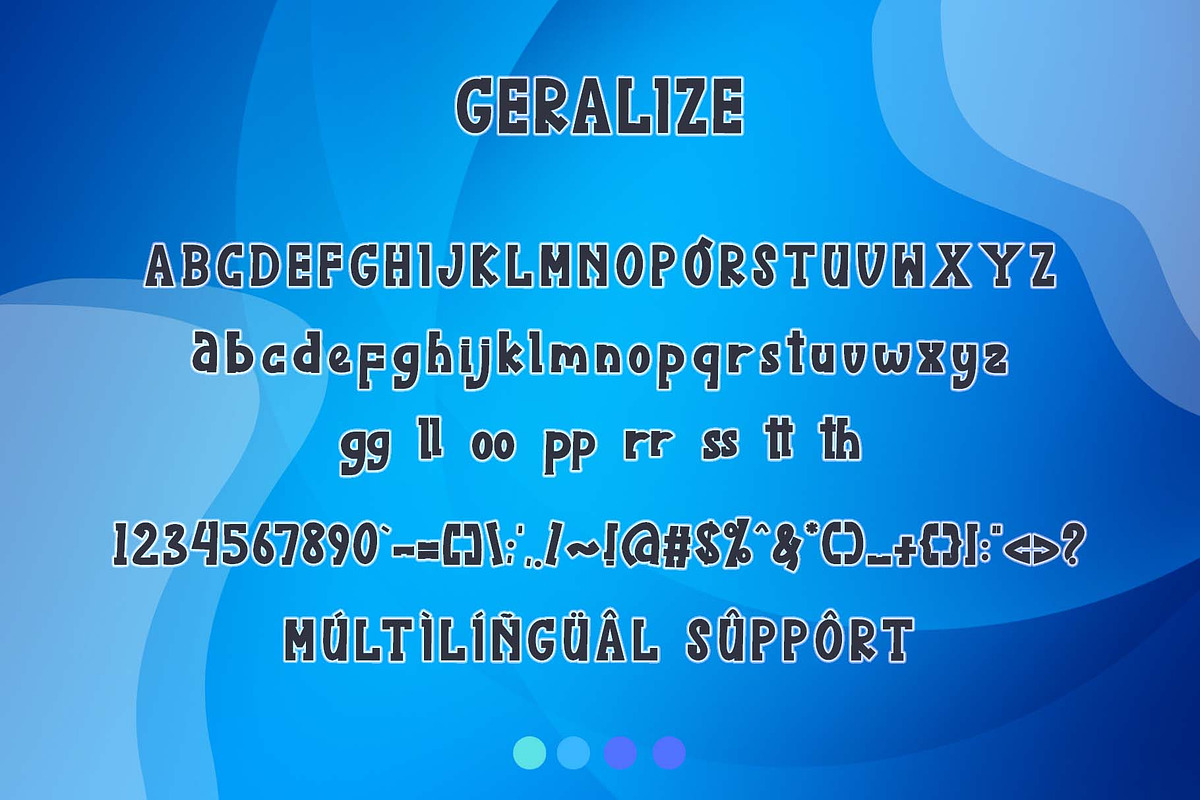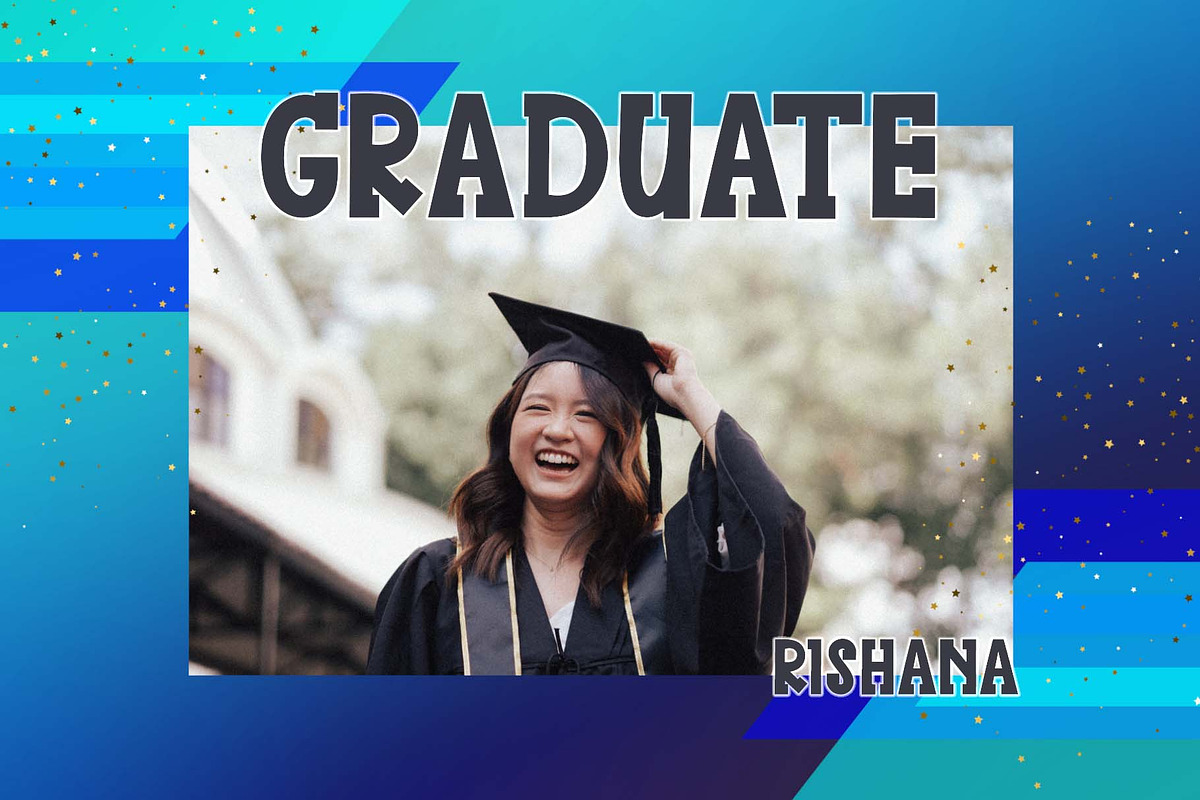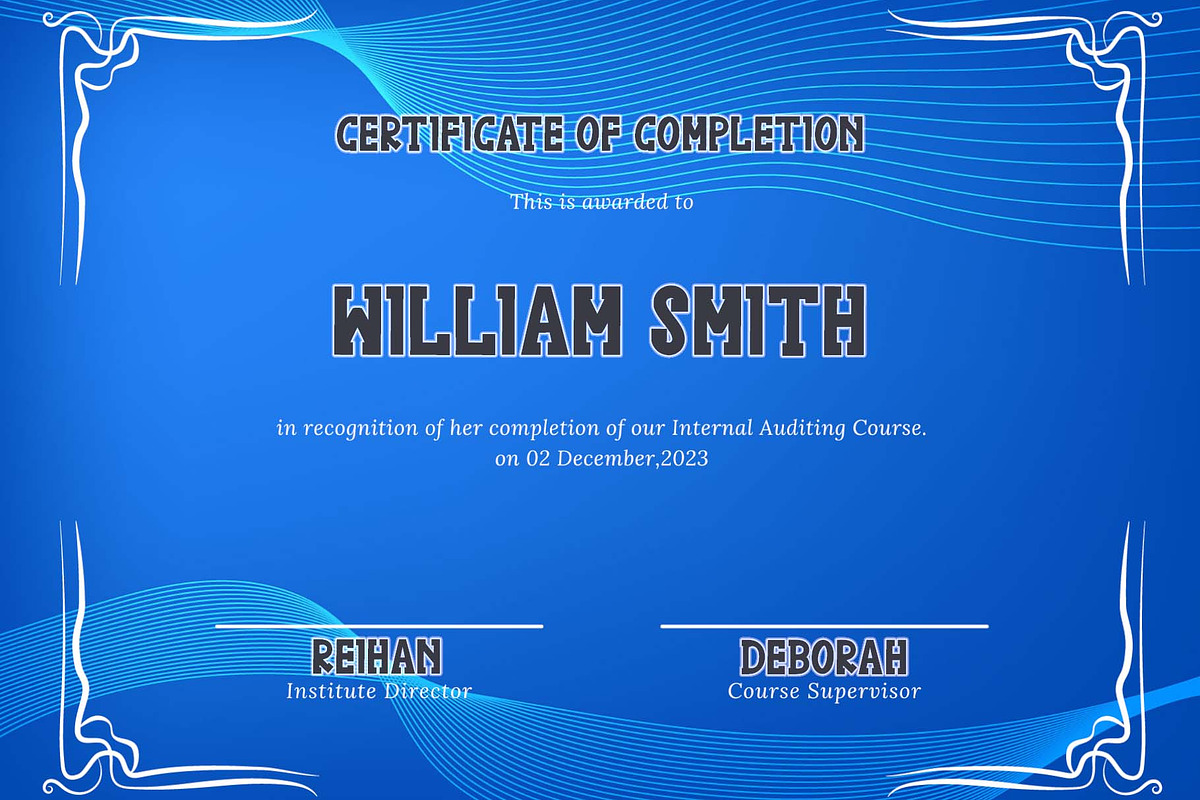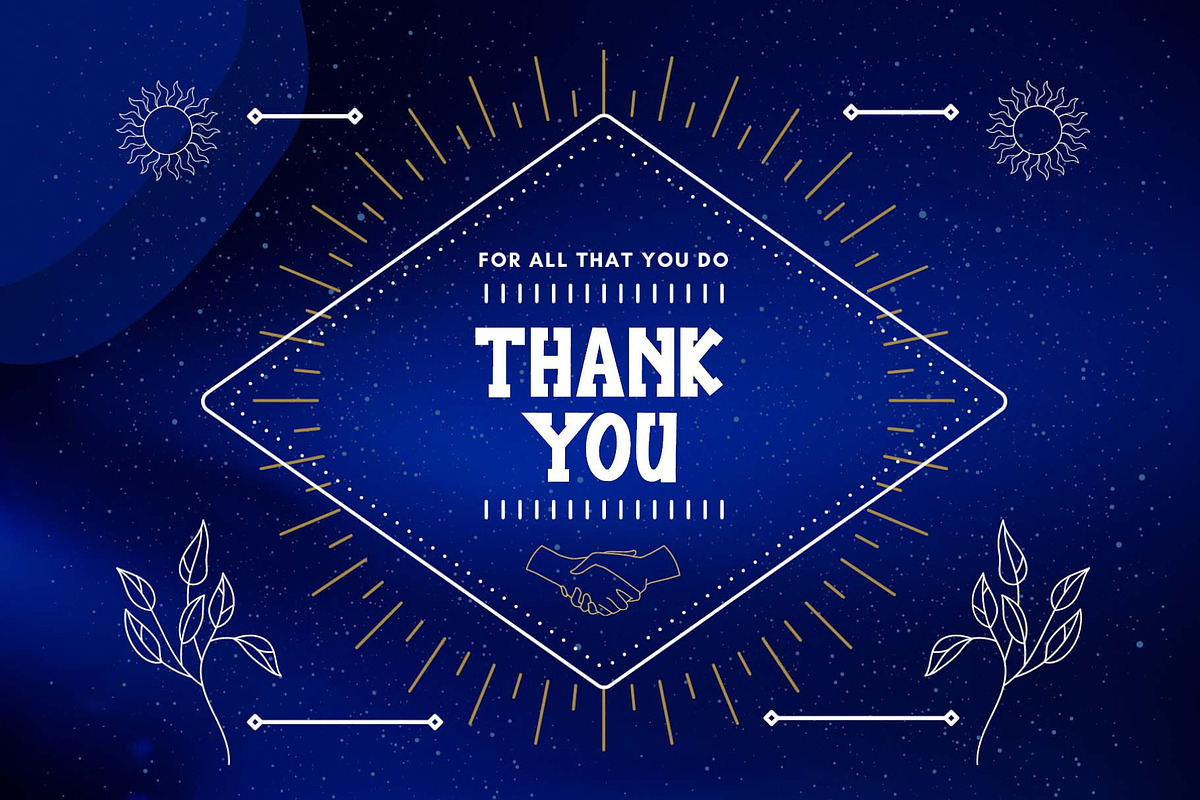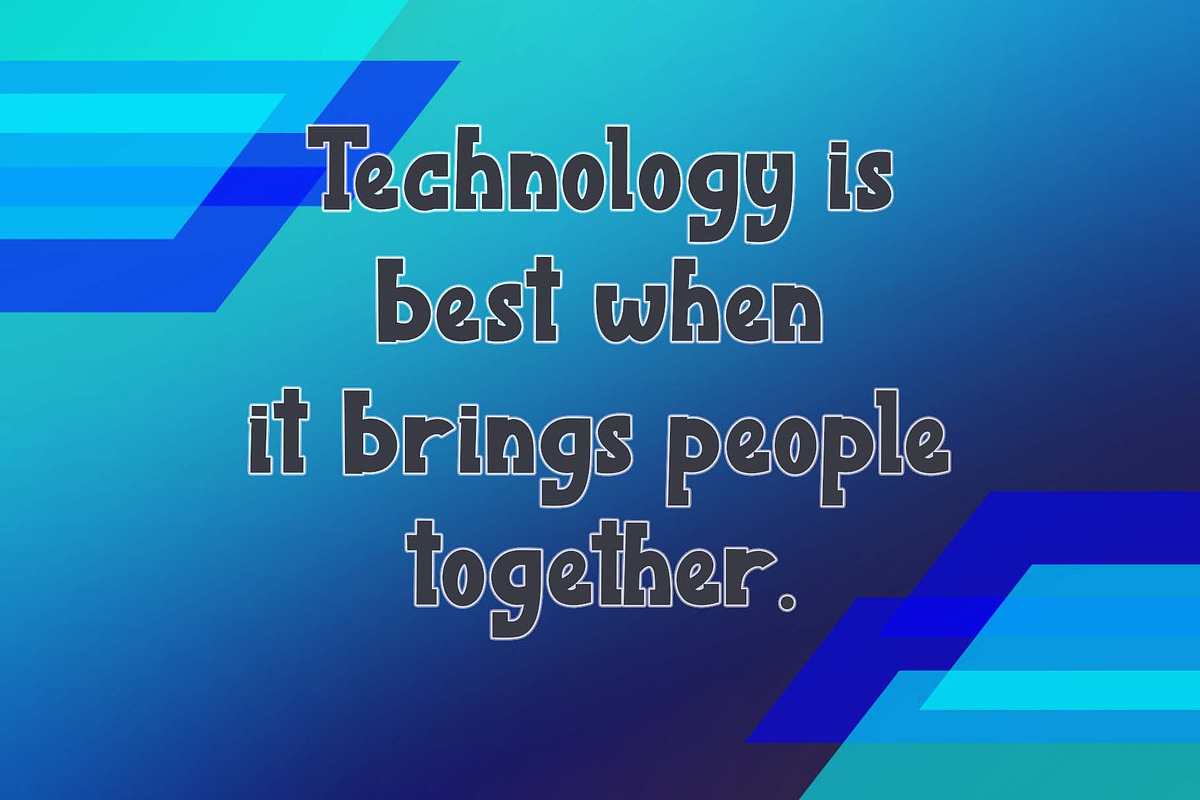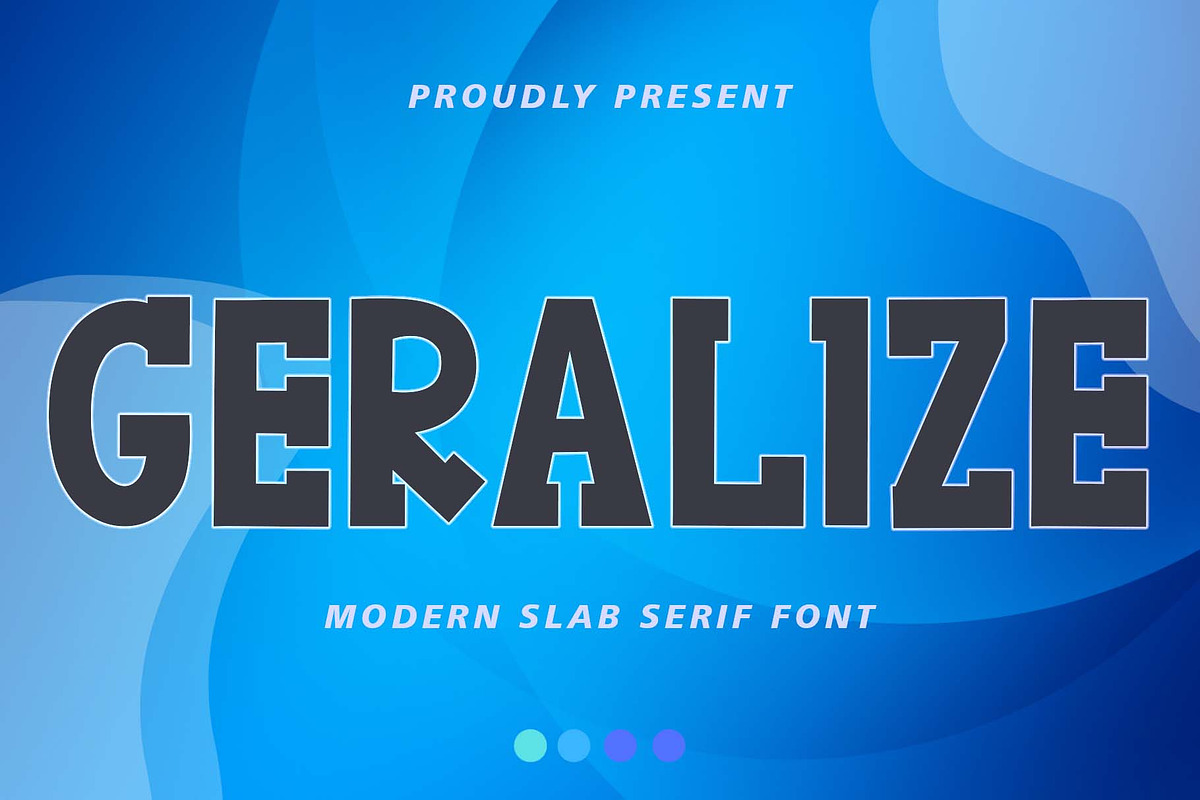
Geralize
"Geralize" is a very elegant and professional modern slab serif font. This font is equipped with uppercase, lowercase, ligatures, numerals, punctuations, and multilingual support. It is suitable for logos, branding, banners, posters, prints, and more.